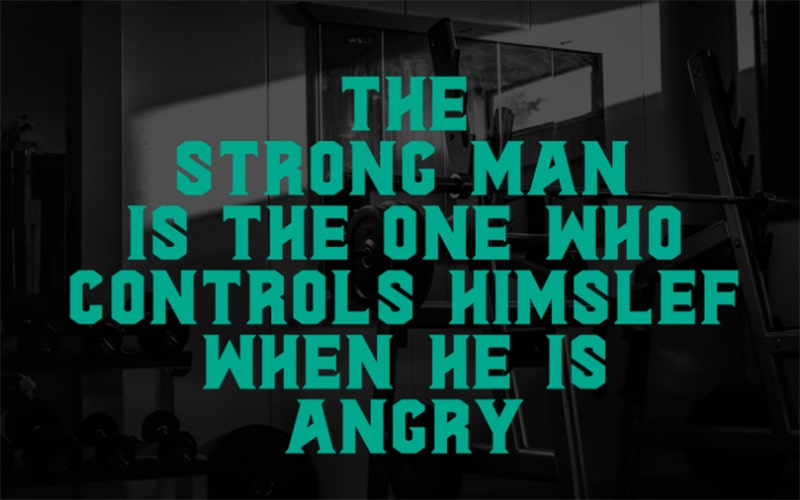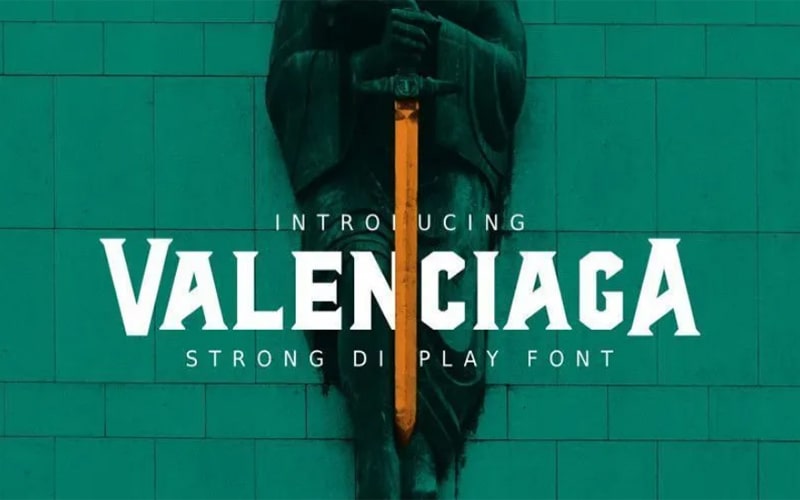
Al Valenciaga Font is a strong display typeface. It is specially designed to create elegant typographic works which leave an excellent look to your projects.
Aluyeah Studios took charge to design this sans-serif typeface. For the first time, this luxury display font was updated by Editorial Staff on November 26, 2019.
Al Valenciaga comes with a rough and chopped appearance with sharp terminals which give it an aggressive look. You can find this typeface within Web Fonts.
This logotype modern font contains only 1 unique style such as the “Al Valenciaga Normal” font style. The subfamily of this Al Valenciaga typeface is Normal.
It comes with a Basic Latin character that supports different international languages. These languages make this typeface introduce around all over the world.
This is an elegant typeface perfectly suitable for different purposes such as being the display font for product packaging, Logos, branding, and many more.
A cool cursive-free version font contains 182 strong characters including uppercase and lowercase letters. Let’s take a look at its beautiful texture.